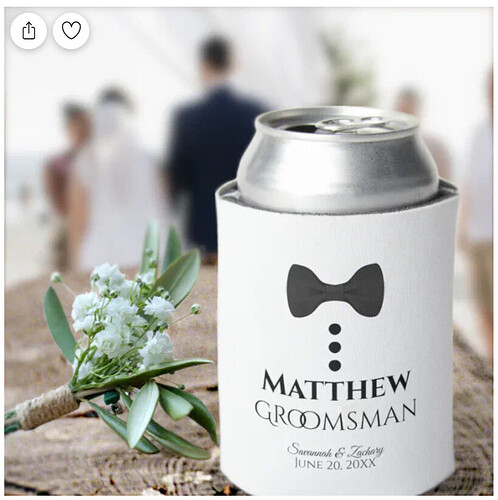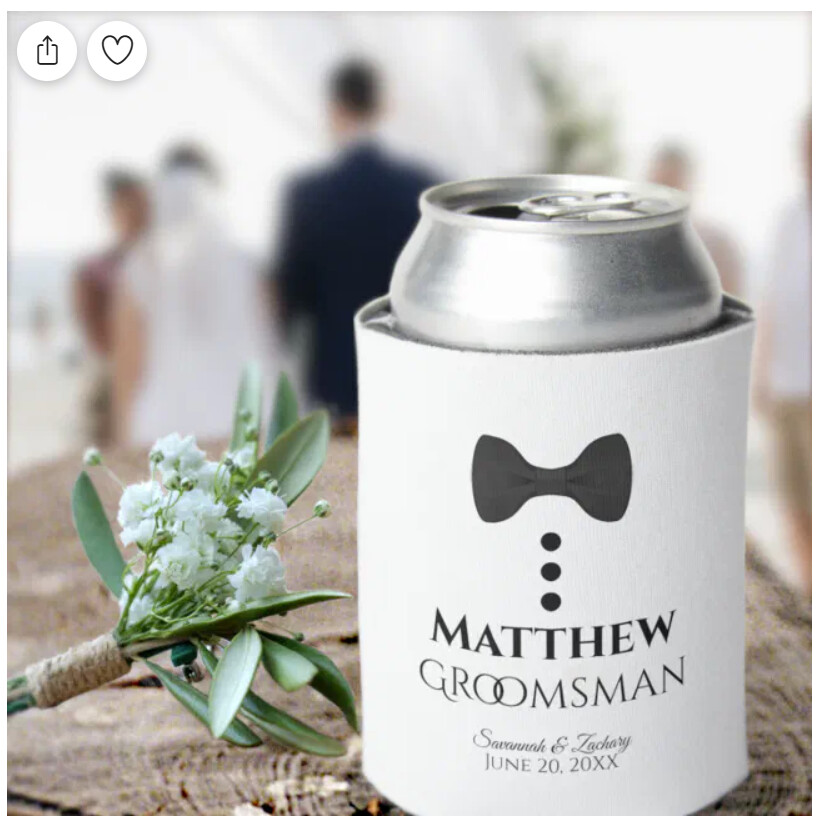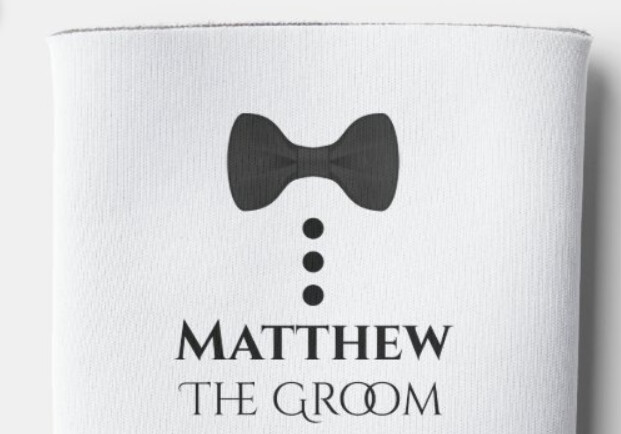
Not sure how to phrase this question, but when using the Cinzel Decorative font (and maybe in some other fonts too) if you put certain letters together they’re automatically replaced with a decorative ligature or glyph. Here’s an example, the “oo” gets replaced with a character that overlaps the letters.
Same thing happens with “Th”. I’m wondering if there’s a way to prevent this behavior, or if I just need to use a different font. I had a customer complain about it in this design and I was able to get it to not replace by making it “OO” with capital letters instead of “oo” but that’s not ideal because the capital letters have decorative elements that don’t always work in the middle of a word. Just hoping there’s some easy trick that I’m unaware of.
OK… I did a bit more research and I think I may have answered my own question. Turns out that the overlapping letters are not actually ligatures (where the two characters are being replaced with a single combined character) like I thought. It’s actually an adjustment of the kerning that’s built into the font. So it’s not something that Zazzle’s design tool is doing, it’s built into the font. As far as I can tell the only way to get around it is to group two separate text strings together, which of course makes them un-editable by the customer. Just thought I’d post this in case anyone else is ever puzzling over this issue!
You can sort of get away with it by using uppercase O’s with the rest being lower case eg grOOmsman - maybe?
Thanks! I like the overlapping “O’s” too, but apparently at least one customer didn’t! The one I don’t like is that it smooshes “he” together into one letter.